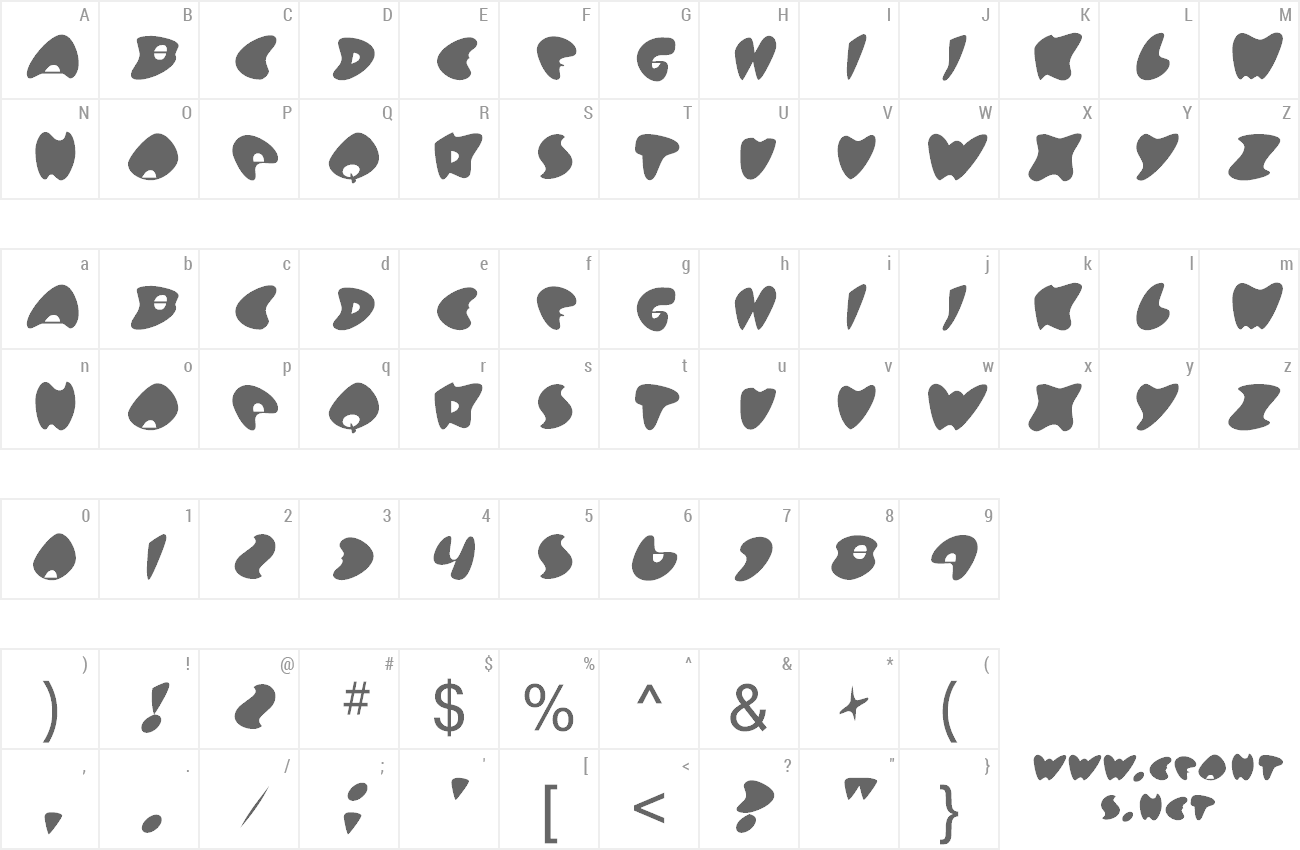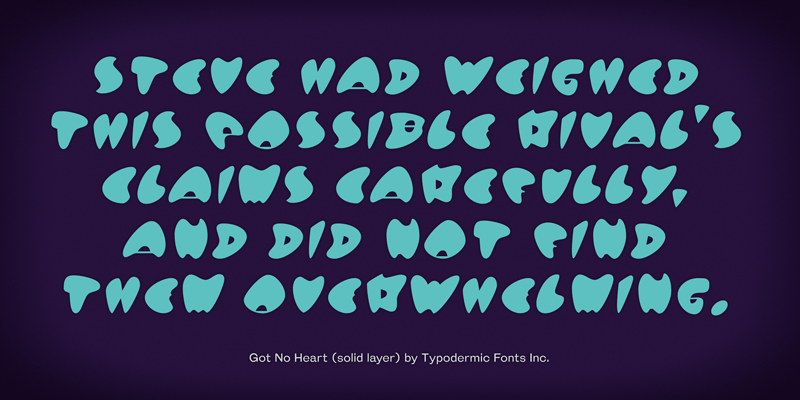
Preview and download Got no heart Font. Created by Typodermic Fonts in Fancy Cartoon styles with 100% Free license.
Got No Heart was inspired by kidney shaped coffee tables of the 1950’s. These fonts include a license that allows free commercial use: sometimes referred to as a desktop license. This allows you to install the fonts on a computer and use them to create posters, web graphics, game graphics, t-shirts, videos, signs, logos and more. Read the license agreement for details. If you'd like to embed these fonts in an app, ebook, on the web or anything that's not covered by the desktop license agreement, visit the link below. You'll find distributors who offer different types of licenses or you can contact me for help. http://typodermicfonts.com/got-no-heart/ |